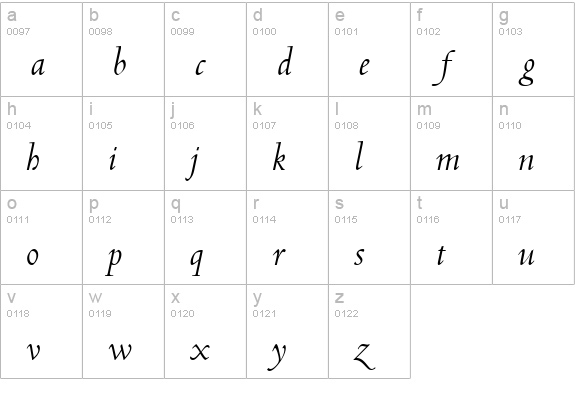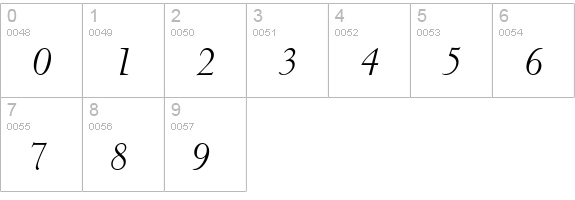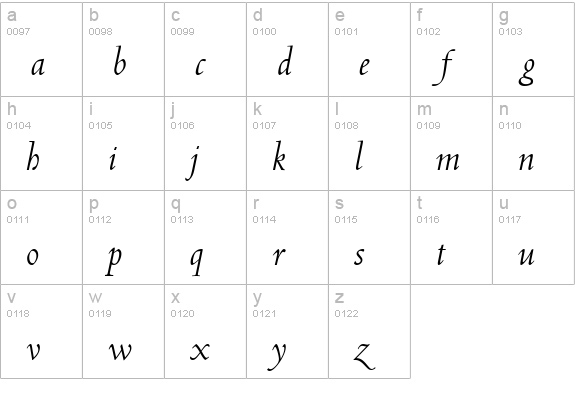
Cambridge-Italic is a distinctive, italic variant in the Cambridge typeface family \xE2\x80\x94 well suited to design and typography projects.
Cambridge-Italic font is a stunning and elegant typeface that exudes sophistication and style. With its sleek and modern design, this font is perfect for adding a touch of class to any project. The graceful curves and smooth lines of Cambridge-Italic font make it a versatile choice for a wide range of applications, from branding to editorial design. The best part is that Cambridge-Italic font is available for free download at FontsMarket.com. This means that you can easily access this exquisite font and use it in your projects without any cost. Don't miss out on the opportunity to enhance your designs with the timeless beauty of Cambridge-Italic font, available for free at FontsMarket.com.